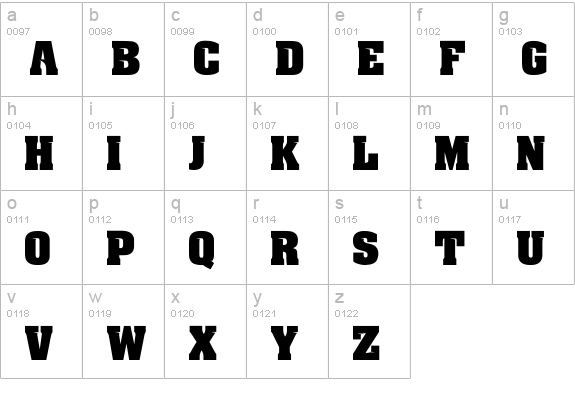
NCAA Detroit Titans Bold Font Details
NCAA Detroit Titans Bold is a strong, high-contrast variant in the NCAA typeface family \xE2\x80\x94 well suited to headlines, attention-grabbing titles, and strong calls-to-action.
Introducing NCAA Detroit Titans Bold font, a powerful and dynamic typeface that embodies the spirit of the Detroit Titans team. This font exudes confidence, strength, and determination, making it the perfect choice for any sports-related design project. With its bold and assertive letterforms, NCAA Detroit Titans Bold commands attention and leaves a lasting impression. This font is not only visually striking but also highly versatile. Whether you're designing a team logo, creating sports apparel, or crafting promotional materials, NCAA Detroit Titans Bold font will effortlessly elevate your designs to the next level. Its bold strokes and distinct character shapes make it easily readable even from a distance, ensuring your message is conveyed with clarity and impact. One of the best features of NCAA Detroit Titans Bold font is that it is freely available to download at FontsMarket.com. This means that you can easily access and utilize this incredible font without any restrictions, making it a valuable asset for both personal and commercial projects. By offering this font for free, FontsMarket.com ensures that designers, enthusiasts, and fans alike have the opportunity to make their designs stand out without any obstacles. So, whether you're a die-hard fan of the Detroit Titans or simply seeking a bold and captivating font for your next project, NCAA Detroit Titans Bold font is the perfect choice. Its versatility, visual appeal, and the fact that it is freely available to download make it a must-have in any designer's toolkit. Download NCAA Detroit Titans Bold font today and unleash its power to create striking and memorable designs that leave a lasting impression.